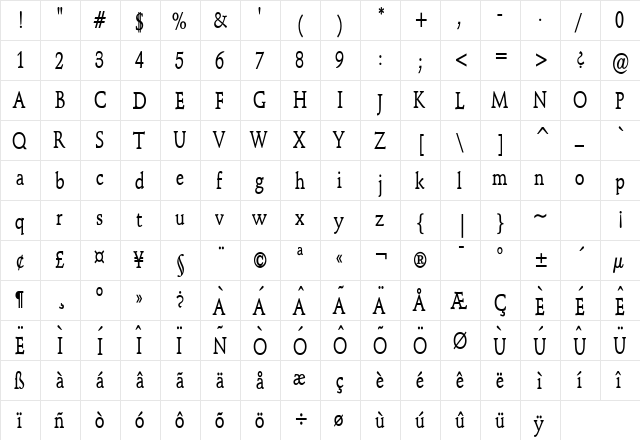
Schroeder Condensed Bold
Design Context for Schroeder Condensed Typeface
Schroeder Condensed takes a measured approach to typography — its balanced proportions and neutral character make it a reliable workhorse for both digital and print work. Its bold stroke weight gives it real presence on the page. The condensed width makes it efficient for tight spaces without sacrificing legibility.